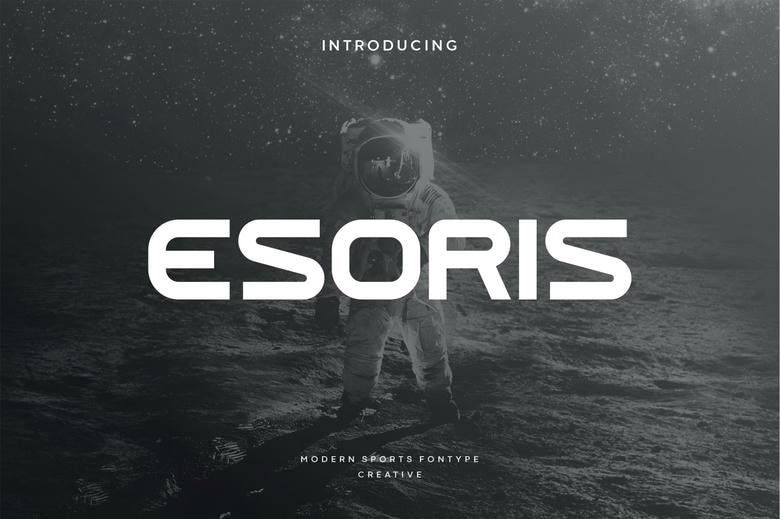
Esoris Font
Esoris is a display font featuring some gentle curves that give it a softer, more friendly feel. This font would be ideal for web designs, business cards, or anything else that requires a unique touch!
Esoris Display Font